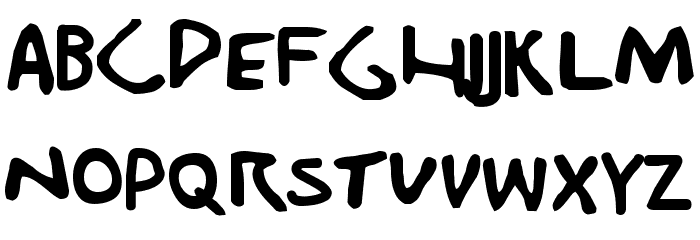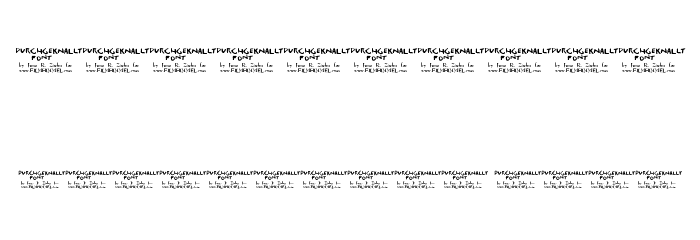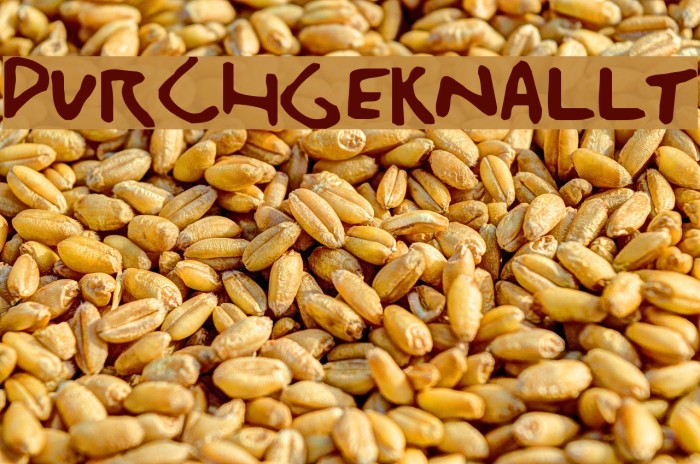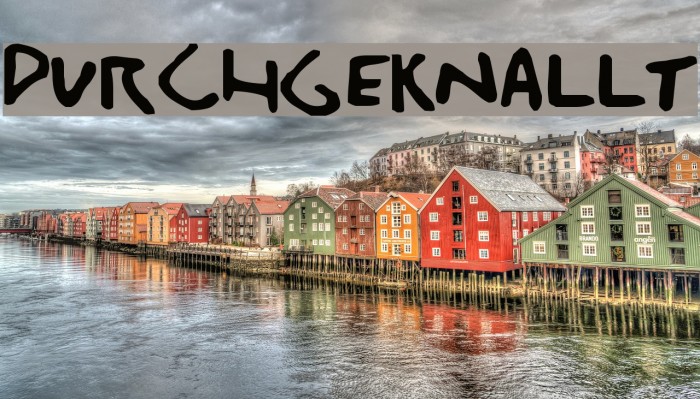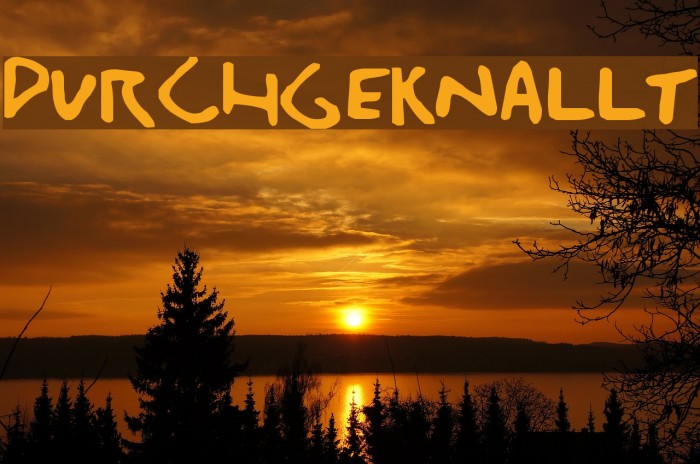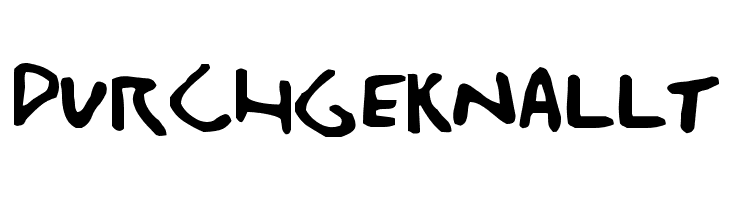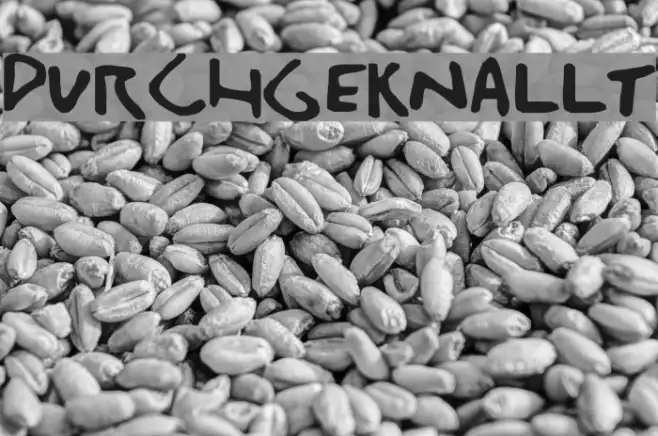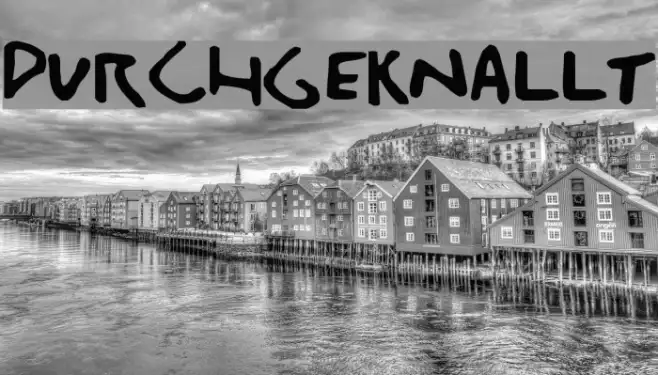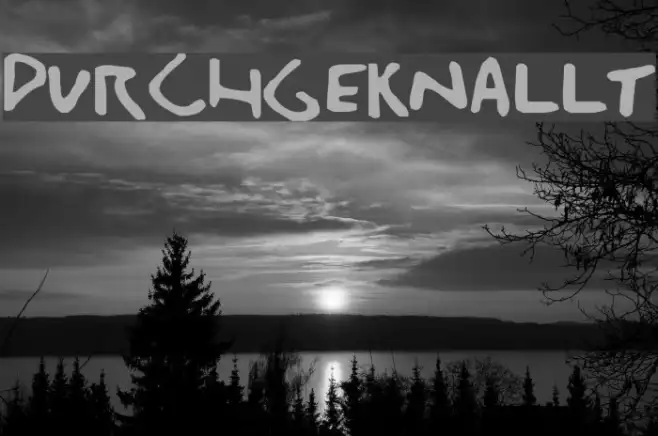
Durchgeknallt Font
This font exhibits a playful and energetic style, characterized by its bold and irregular strokes. The letters have a hand-drawn appearance, with varying thickness and a slightly tilted orientation, giving it a dynamic and informal feel. The uppercase and lowercase letters maintain a consistent style, with rounded edges and a sense of movement. The numbers and special characters follow the same design principles, ensuring a cohesive look across all glyphs. This font is ideal for projects that require a fun and lively touch, such as children's books, posters, or creative branding.
A playful, hand-drawn font with bold, irregular strokes and a dynamic feel.
- Proposed Projects: Ideal for children's books, playful posters, creative branding, and informal invitations.
- Overall Style: Playful